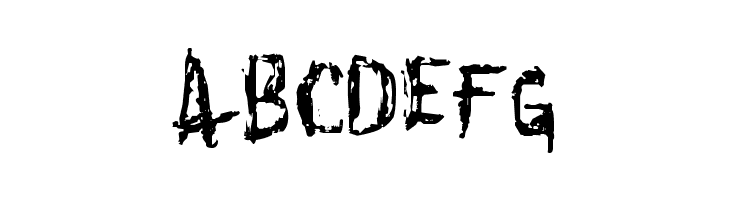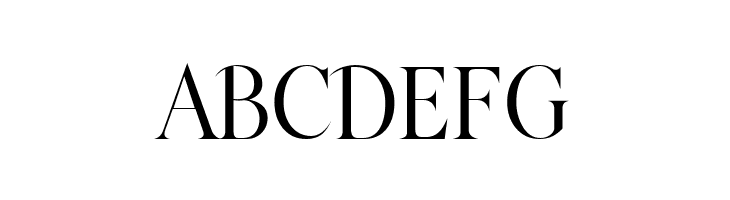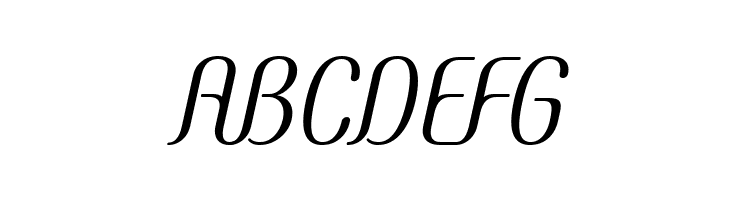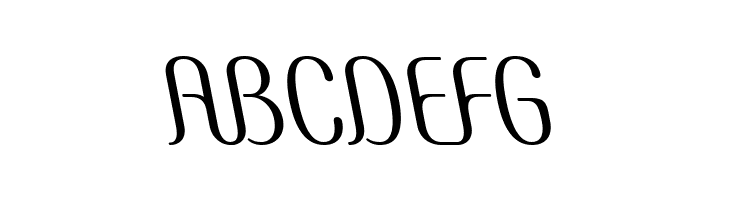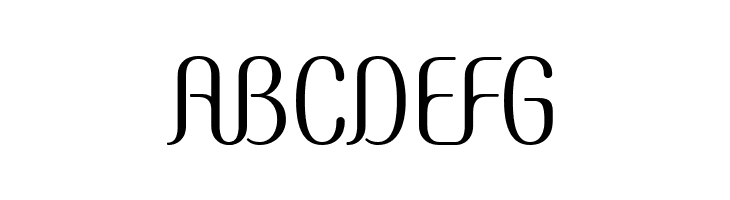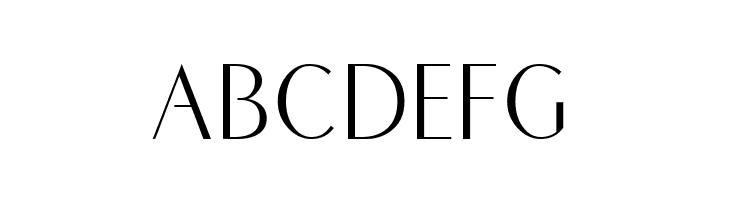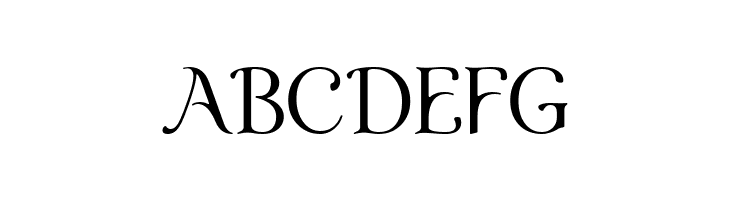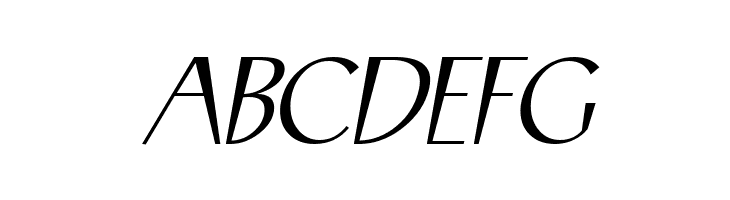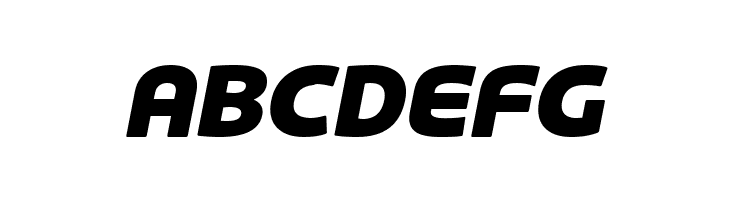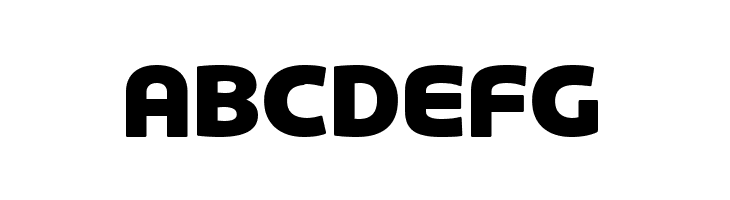
• OPTIMarkusRoman
A classic serif font with elegant, sharp serifs and a modern touch.
• OPTIMaseltov
A bold, angular font with a futuristic and striking design.
• OPTIMayflower
A classic serif font with elegant curves and a refined, sophisticated appearance.
• OPTIMercenaryFive
A modern, condensed font with medium contrast and sleek design.
• OPTIMetropolis-Bold
A bold, high-contrast serif font with sharp, angular serifs and a dramatic style.
• OPTIMichaelAngelo
A classic serif font with elegant strokes and balanced proportions.
• OPTIMill
A modern serif font with elegant and refined letterforms.
• OPTIMirc-Bold
A bold, modern font with a slight italic slant and geometric design.
• OPTIMirc-Light
A modern, slightly italicized font with a sleek and dynamic design.
• OPTIMistral-Graff
A dynamic, handwritten-style font with fluid and expressive strokes.
• OPTIMiyako-Black
A bold, decorative font with sharp serifs and a dramatic style.
• OPTIModern-Blackletter
A modern blackletter font with intricate, ornate letterforms and a blend of historical and contemporary styles.
• OPTIModern-Two
A modern serif font with high contrast and elegant styling.
• OPTIModularSerif-Bold
A bold, modular serif font with a tall, condensed structure and pronounced serifs.
• OPTIMoldy-DemiBold
A bold serif font with strong, thick strokes and a modern twist.
• OPTIMoldyLIAd
A classic serif font with elegant curves and moderate contrast, perfect for sophisticated designs.
• OPTIMoldyLightAd
A modern serif typeface with elegant proportions and a sophisticated style.
• OPTIMorgan One
A bold, condensed font with high contrast and strong visual impact.
• OPTIMorgan-FiveNine
An elegant script font with flowing, ornamental characters.
• OPTIMorgan-TwentyNine
A bold, decorative font with high contrast and intricate detailing.
• OPTIMorgan-Two
A bold, heavy font with strong, uniform strokes and tight spacing.